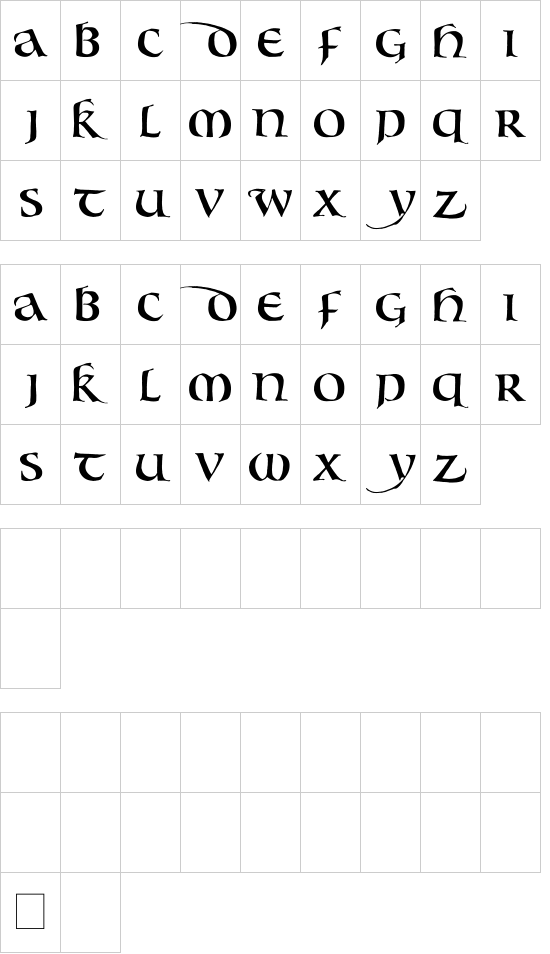
Bouwsma Uncial
Bouwsma Uncial is a Celtic calligraphic face with rounded uncial letterforms drawn from early manuscript hands. The letters are broad and curved, with the soft, hand-copied quality of monastic lettering and a touch of knotwork spirit. Its mood is ancient and warm, evoking illuminated pages and old Irish texts.
It suits fantasy and medieval game titles, Irish-themed branding, certificate text, and invitations that want a hand-lettered grace. Bouwsma Uncial is free to download as a TrueType file, and you can preview it with your own words to see how the rounded uncial forms read across your text before using them.